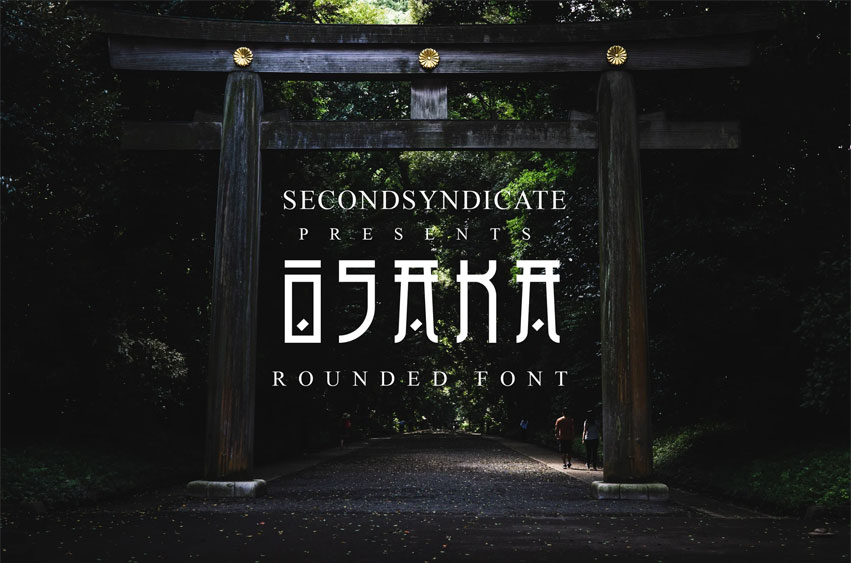
Osaka Japanese Font
Osaka Japanese Font is suitable for flyers, posters, novels, letterheads, or any design requirements you want to be awesome.
It will certainly amaze your readers.
Osaka Japanese Font Preview